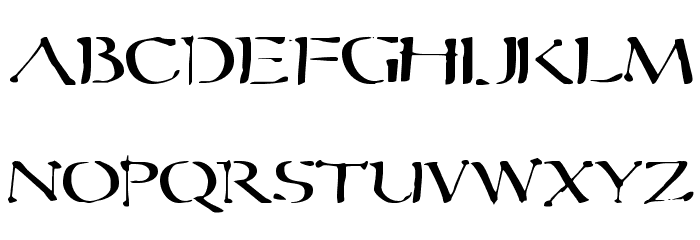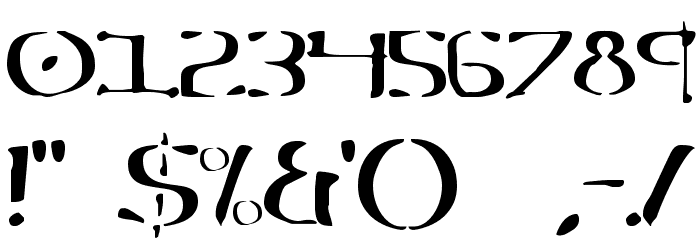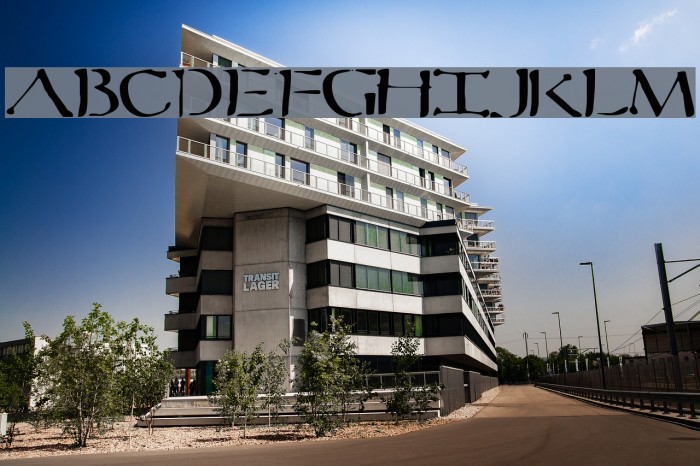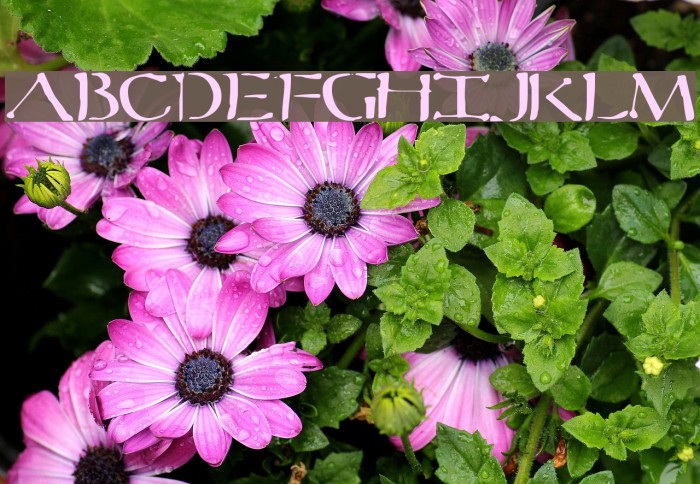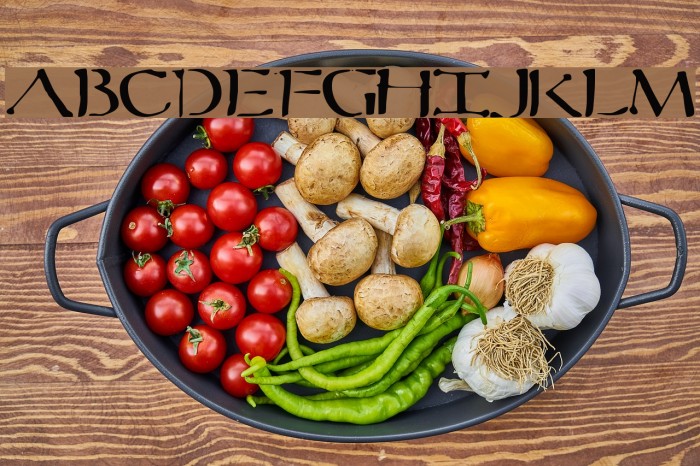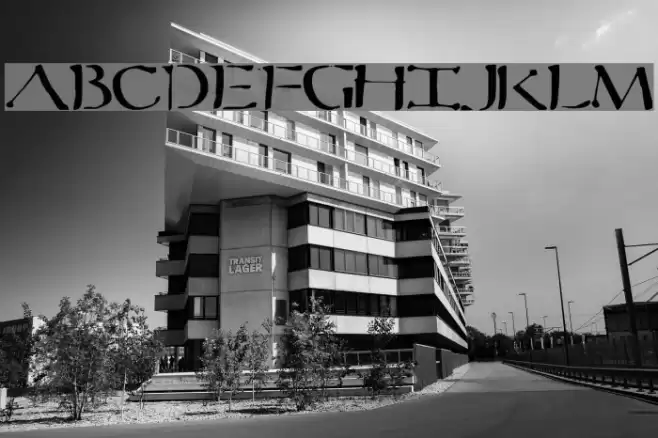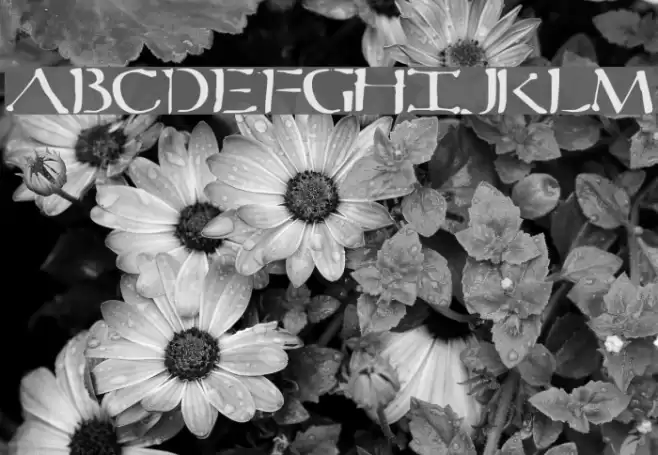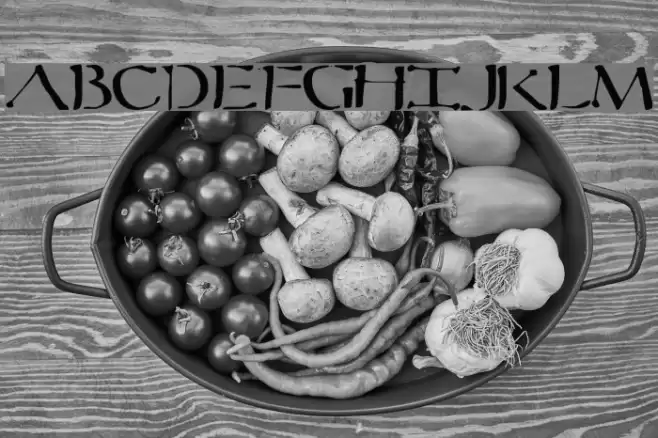
Sever Font
This font features a unique and artistic design, characterized by its sharp, angular strokes and high contrast between thick and thin lines. The letters exhibit a dynamic and somewhat aggressive style, with pointed serifs and a slightly distorted appearance that gives it a modern, edgy feel. The numerals and special characters maintain this distinctive look, ensuring consistency across all glyphs. The overall design is eye-catching and suitable for projects that require a bold and unconventional aesthetic.
A sharp, angular font with high contrast and a modern, edgy style.
- Proposed Projects: Ideal for branding, poster design, album covers, and any project seeking a bold, artistic statement.
- Overall Style: Modern, Edgy, Artistic